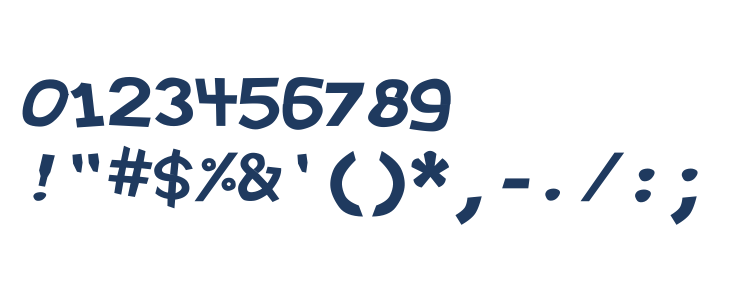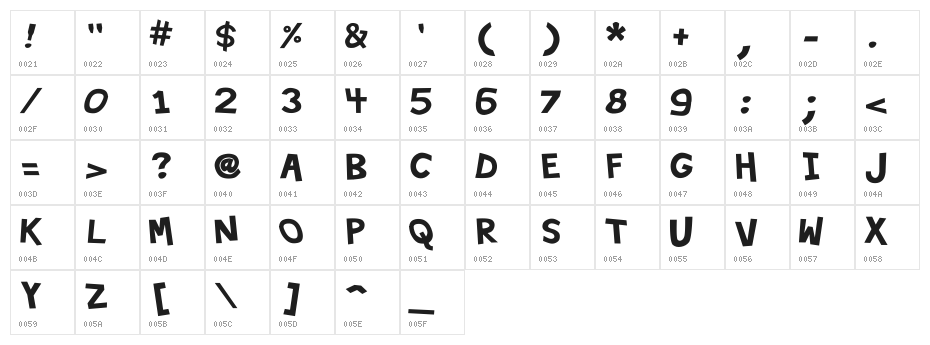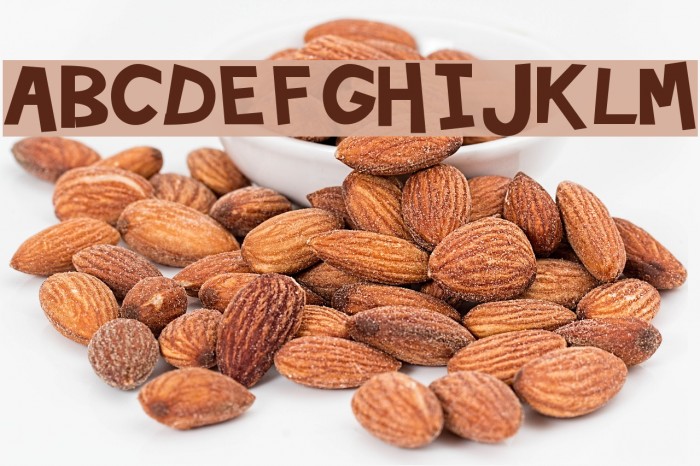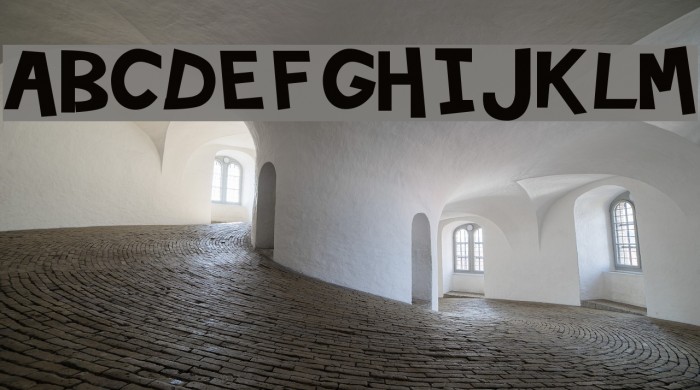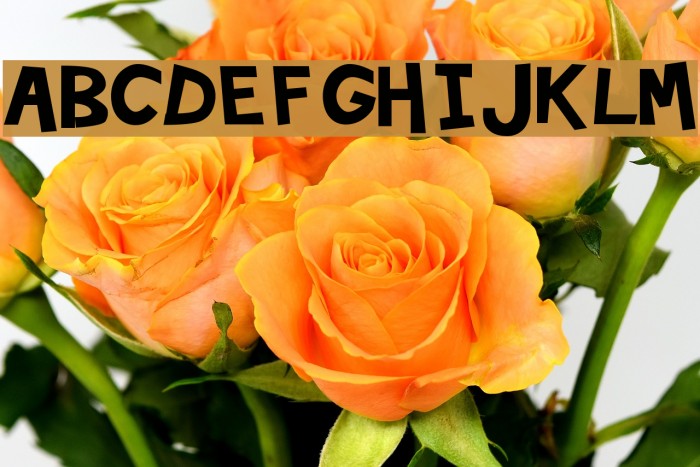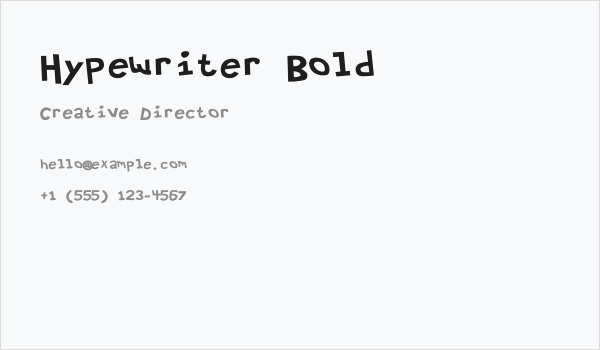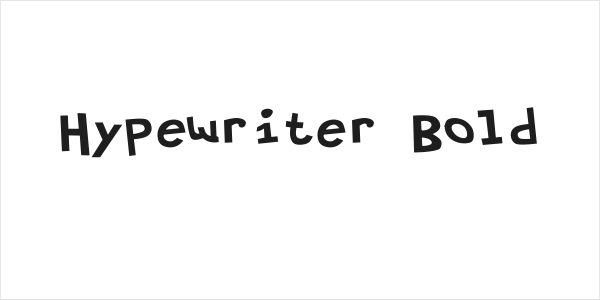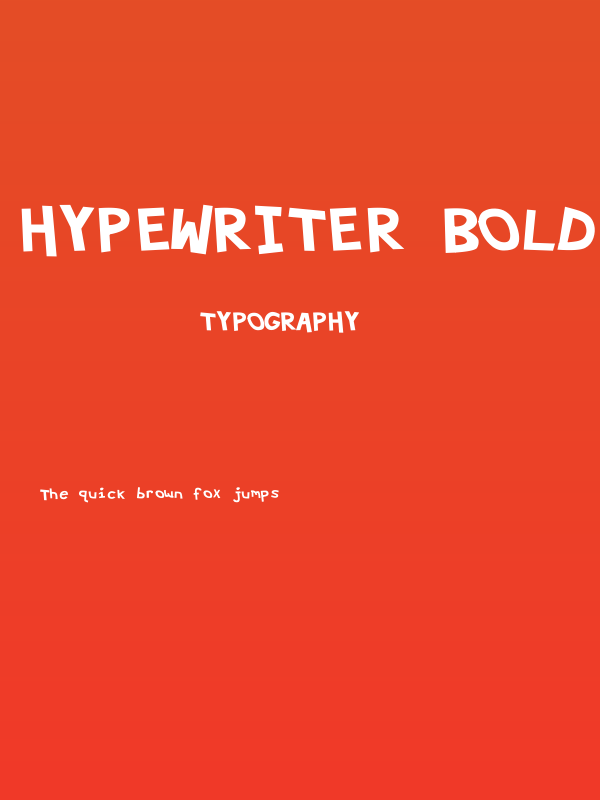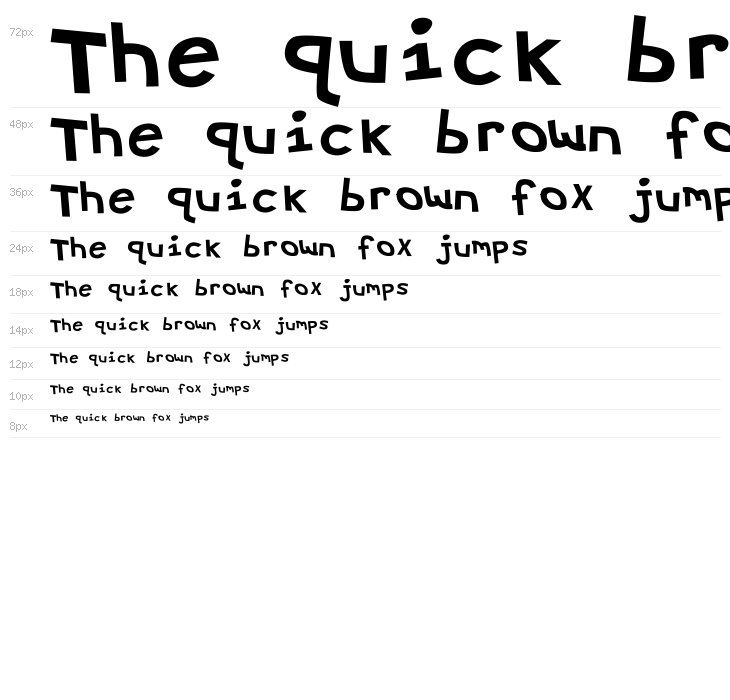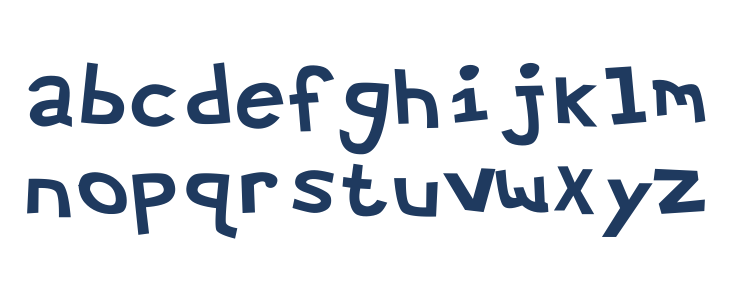
Hypewriter Bold Font
Hypewriter Bold Description
This font features a playful and bold style with a handwritten appearance. The characters are slightly irregular, giving it a whimsical and casual feel. The uppercase letters are robust and stand out with their thick strokes, while the lowercase letters maintain a consistent style that complements the uppercase. The numerals and special characters follow the same playful design, making the font versatile for various creative projects. Its boldness ensures high readability, making it suitable for attention-grabbing headlines or titles.
Overall StylePlayful
Proposed ProjectsIdeal for children's books, playful branding, posters, and creative invitations.